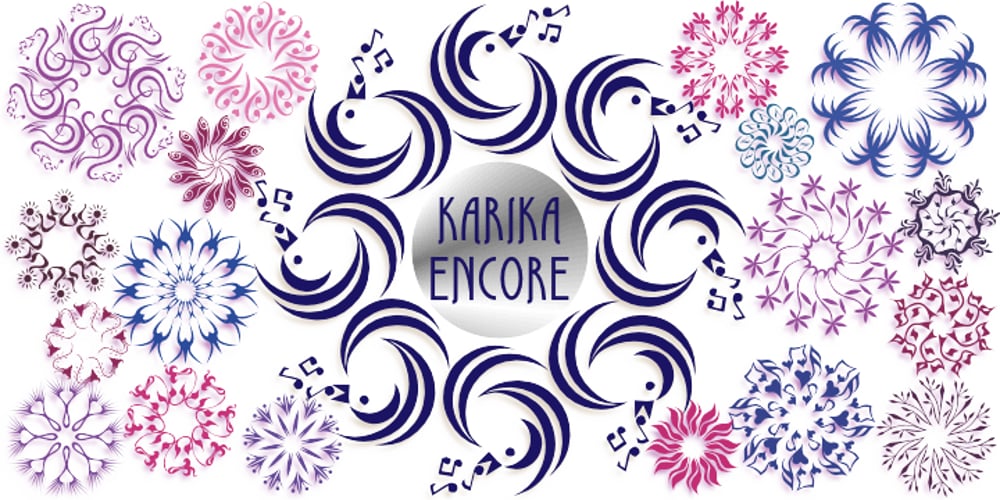
Karika Encore
Karika Encore font
Karika Encore Font Family was designed by Denise Koehler and published by Deniart Systems. Karika Encore contains 1 styles and family package options. Karika Encore is the 3rd volume in the Karika series of swirly circular symbols. The 52 original designs feature floral and musical motifs in circular symmatrical forms. A splendid addition to any illustration or design project such as backgrounds, greeting cards, posters, etc. Karika Encore’s characters are symmetrically sized in height and width so they’ll work charmingly together with our Karika Hearts and Karika Swirls symbol fonts.